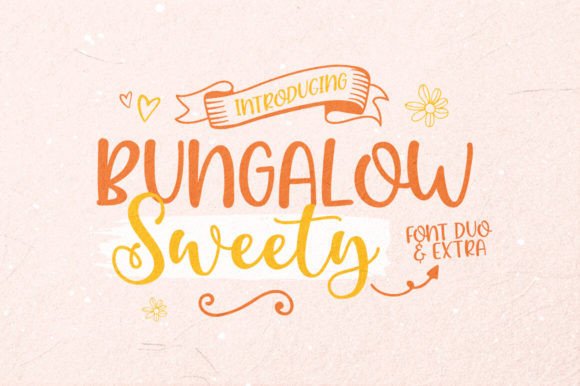
The Ultimate Design Solution: Bungalow Sweety Duo Font
Have you ever been in the middle of a design project, pouring your heart and soul into it, only to get stuck on one thing: finding the perfect font? I certainly have! It was a typical Wednesday afternoon when I received a call from a client who needed a custom wedding invitation design. The theme was vintage-meets-modern, and I had to find a font that would tie everything together. That’s when I stumbled upon the Bungalow Sweety Duo Font, and let me tell you, it was love at first sight! 💕
So, what makes Bungalow Sweety Duo so special? Here are some things I love about this amazing font:
- ✨ Beautiful and balanced character: The font has a unique, elegant feel to it, making it perfect for a wide range of design projects.
- ✅ Lots of alternative lowercase glyphs: With multiple options for each letter, you can create a truly customized look for your design.
- ✅ Complementary Sans font: The included Sans font provides a nice contrast to the script font, making it easy to create visual hierarchy in your designs.
- ⚠️ Learning curve: With so many alternative glyphs and OpenType features, it may take some time to get familiar with the font.
- 🤔 Limited use in very formal designs: While the font is versatile, it may not be the best choice for very formal or traditional designs.
The Bungalow Sweety Duo Font was created with the goal of providing a beautiful, versatile script font that could be used for a wide range of design projects. The designer drew inspiration from classic script fonts, combined with a modern twist to create a unique and elegant feel. Whether you’re a designer, crafter, or creative hobbyist, this font is sure to become a favorite in your collection.